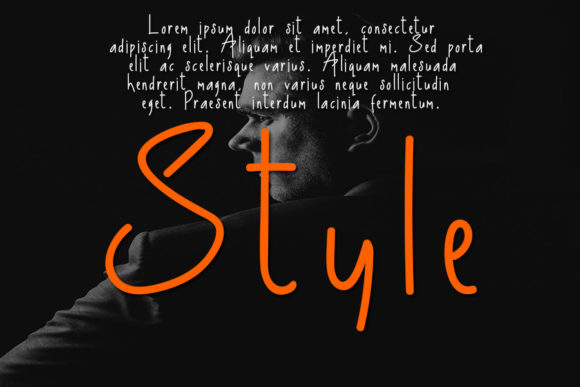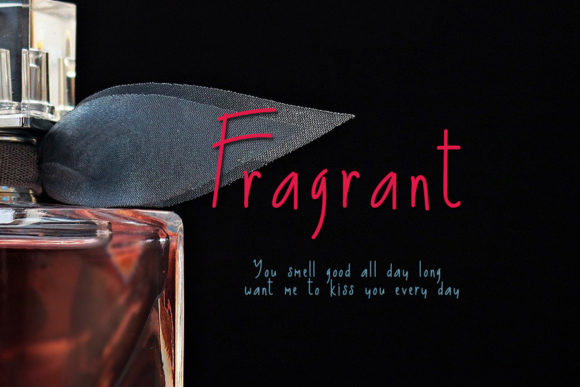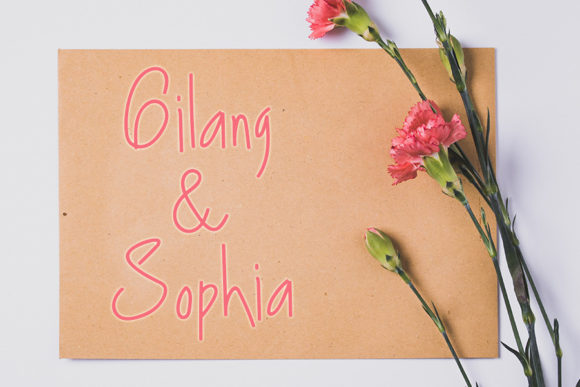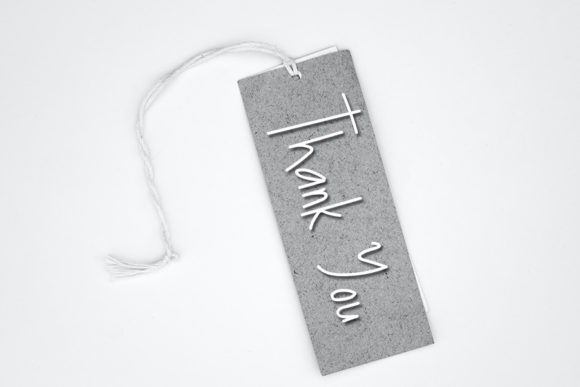
British Font
About British Font
British is a beautiful, thin lettered and sweet script font. It can be added to a wide variety of lovely creations, from formal to informal. Add this font to your library and it will shortly become your go-to choice.